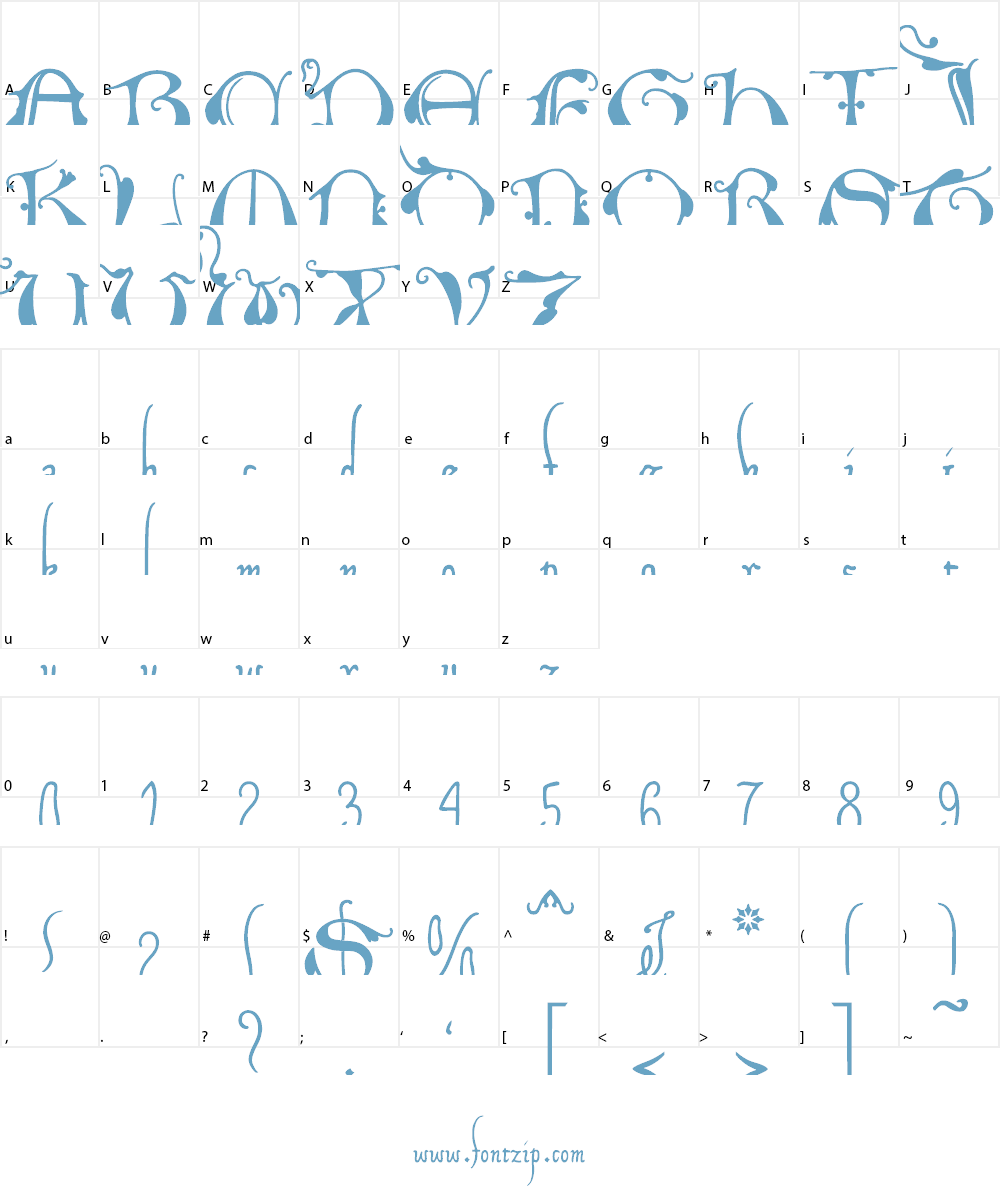
As to its lower case characters, the XiparosLombard font is identical with the XIPAROS font -- apart from the d, which has been replaced by a straight version. The upper case alphabet, however, consists of Lombardic capitals. Since they were taken out of a manuscript Bible some three hundred years younger than the charters that provided the lower case, I've to admit that they are much less austere, and much more rounded than contemporary ones would have been. But I thought it a charming contrast that might very well do till I find another lower case set, which matches the capitals better -- after all, I'm far from done with those old charters!
The XiparosLombard font contains no decorations, and you'll find all the brackets, curly brackets, and greater/less signs here that are lacking in the XIPAROS font, as well as the , =, and bar sign. Do I need to mention that the number sign has taken the shape of a long s?
Update 2010 has redesigned all of the composite glyphs (correcting the dcaron, Lcaron/lcaron, and tcaron), and enlarged the dashes.